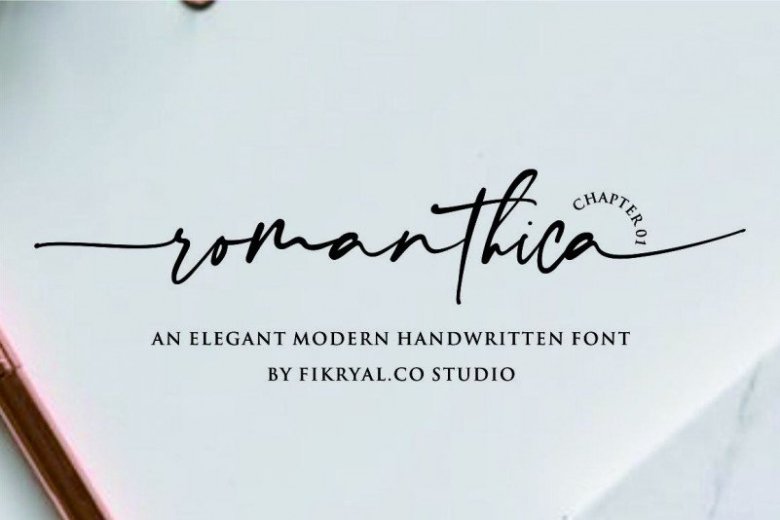
Romanthica Script Font Free
Thank you for looking Romanthica Font. This is a casual hand drawn font. I really enjoyed it with heart and love in the process of making this font collection and I hope that there will be amazing works for every work you do with this font. is a new modern & stylish handwritten font.
Romanthica Script is Perfect for logo,branding, invitation, tittle, wedding designs, social media posts, advertisements, product packaging, product designs, label, photography, watermark, special event, magazine, web design, etc.